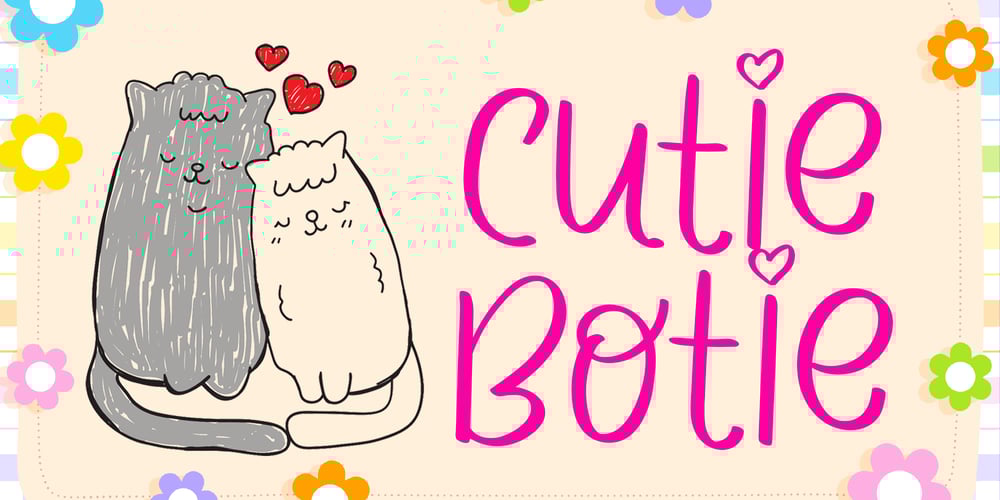
Cutie Botie
Cutie Botie font
Cutie Botie Font Family was designed by Amin Maryono and published by Aminmario Studio. Cutie Botie contains 1 styles and family package options. This is a playful child-like typeface perfect for any fun quirky design work! This font can be used for anything such as T-Shirt designs, phone cases, greeting cards, invitations, mugs and so much more! Get creative!Thanks for checking out this font. I hope you enjoy it!